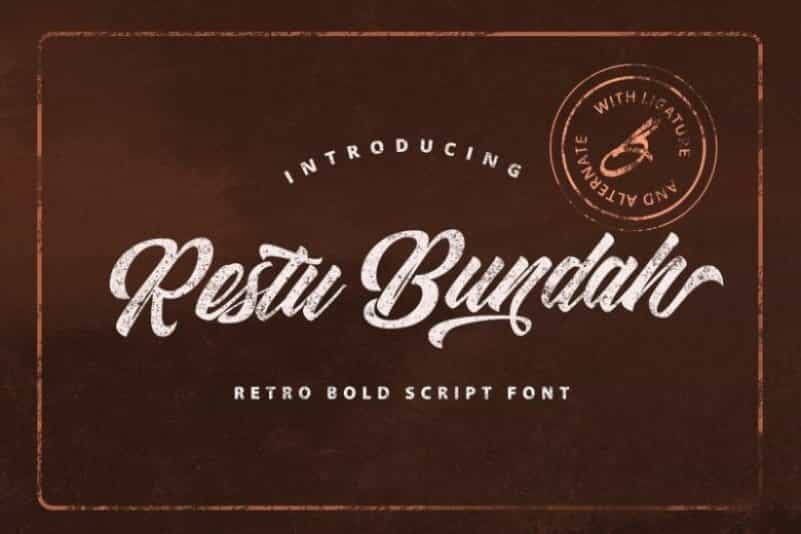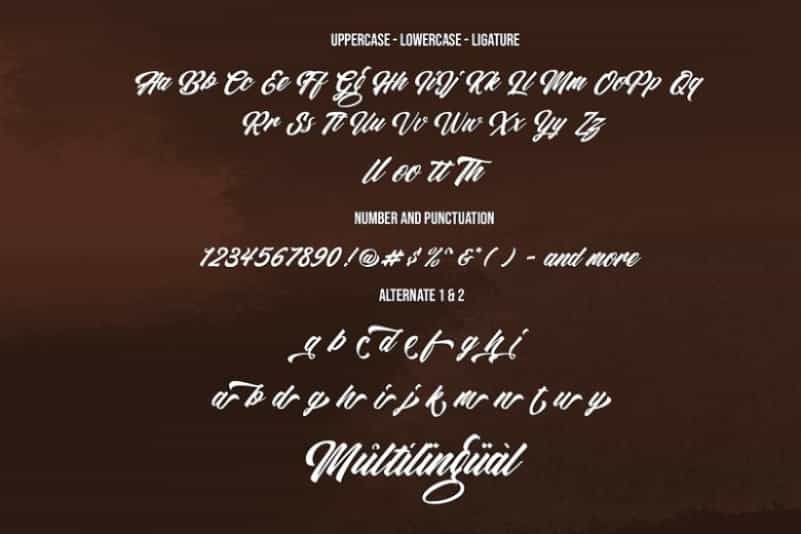
Restu Bundah is the script font with the flair that has the design influence of the 80s retro style along with the contemporary touch, vintage feel, and sporty look. This font will be perfect for those who are into the vintage look and feel and it also goes well with branding projects such barbershop, motorcycle clubs, apparels, labels, logos, cafes, shoe brands, and many more, for hipster designs. This Font Template portrays professionalism, elegance, creativity, and the concept of coolness.